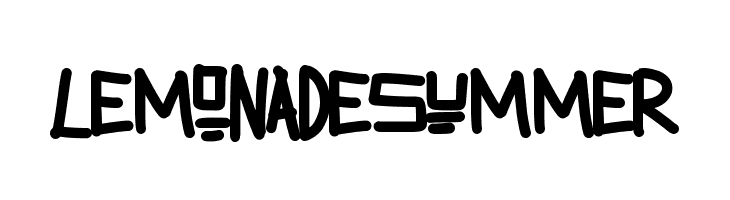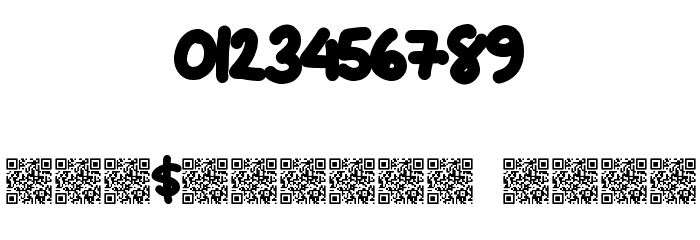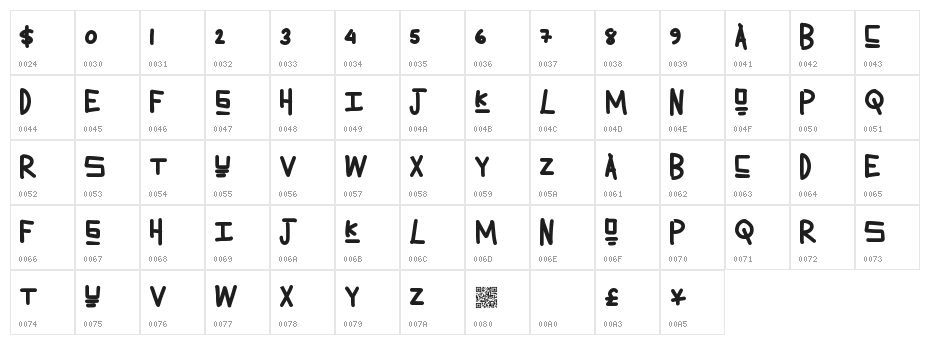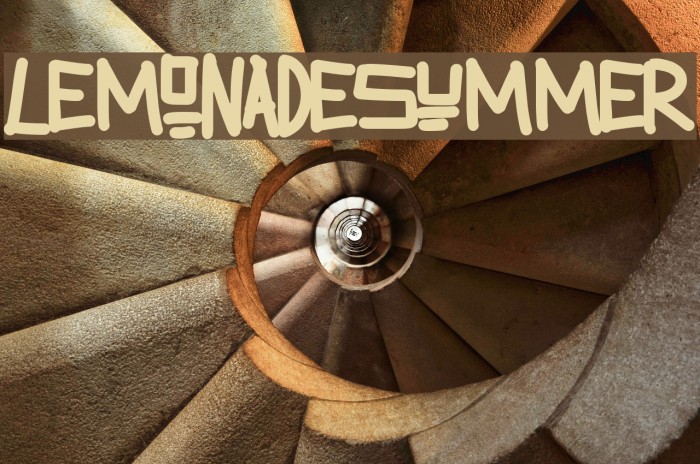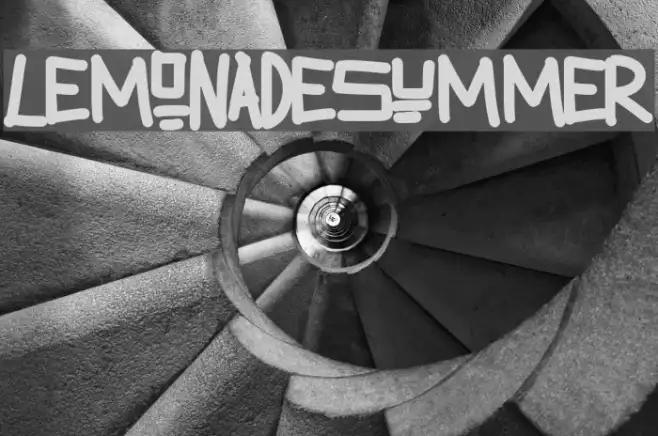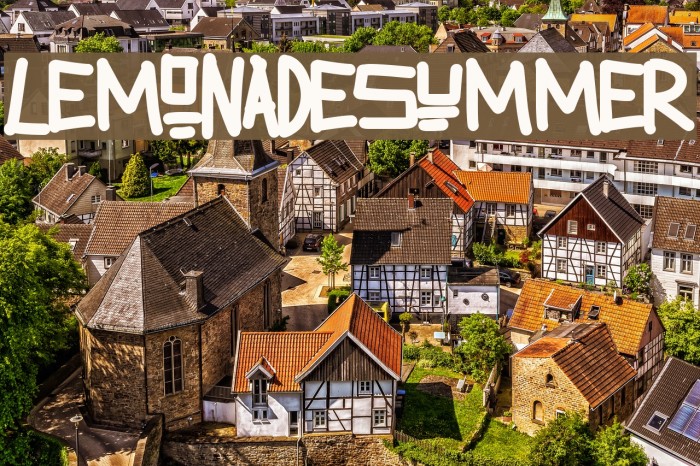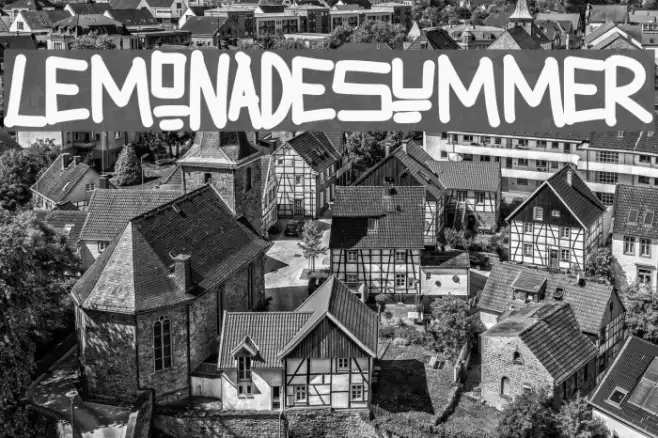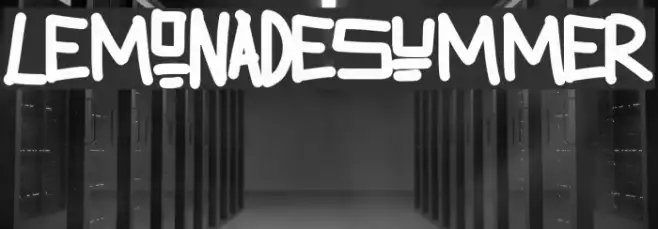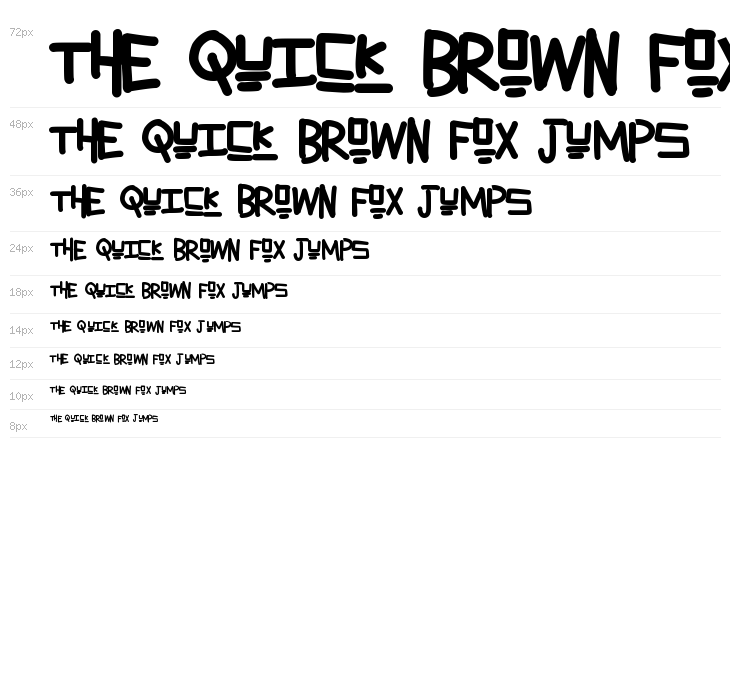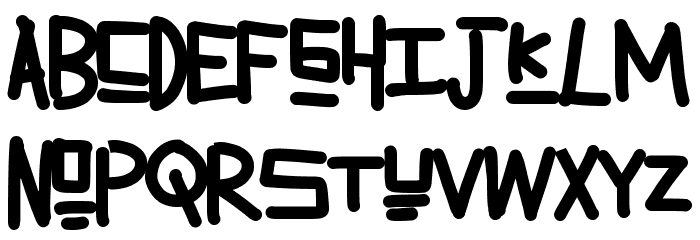
LemonadeSummer Font
LemonadeSummer Description
This font features a playful and bold style with a graffiti-like appearance. The characters are thick and rounded, giving a sense of fun and creativity. The uppercase and lowercase letters maintain a consistent height, creating a uniform look. The numbers and special characters follow the same design, ensuring a cohesive appearance across all elements. The font's unique style makes it stand out, with a modern and urban vibe that is both eye-catching and memorable.
| Use Case | Logos, Posters, Headlines |
| Proposed Projects | Ideal for street art designs, youth-oriented branding, event posters, and creative projects that require a bold statement. |